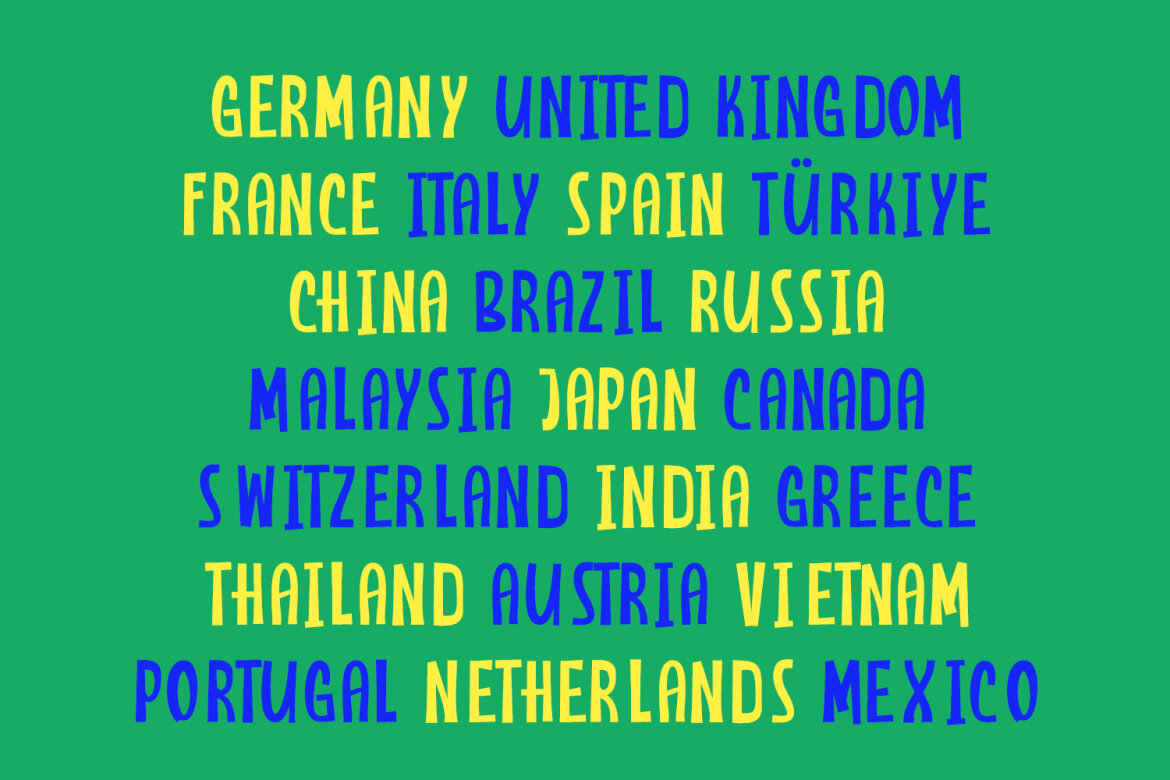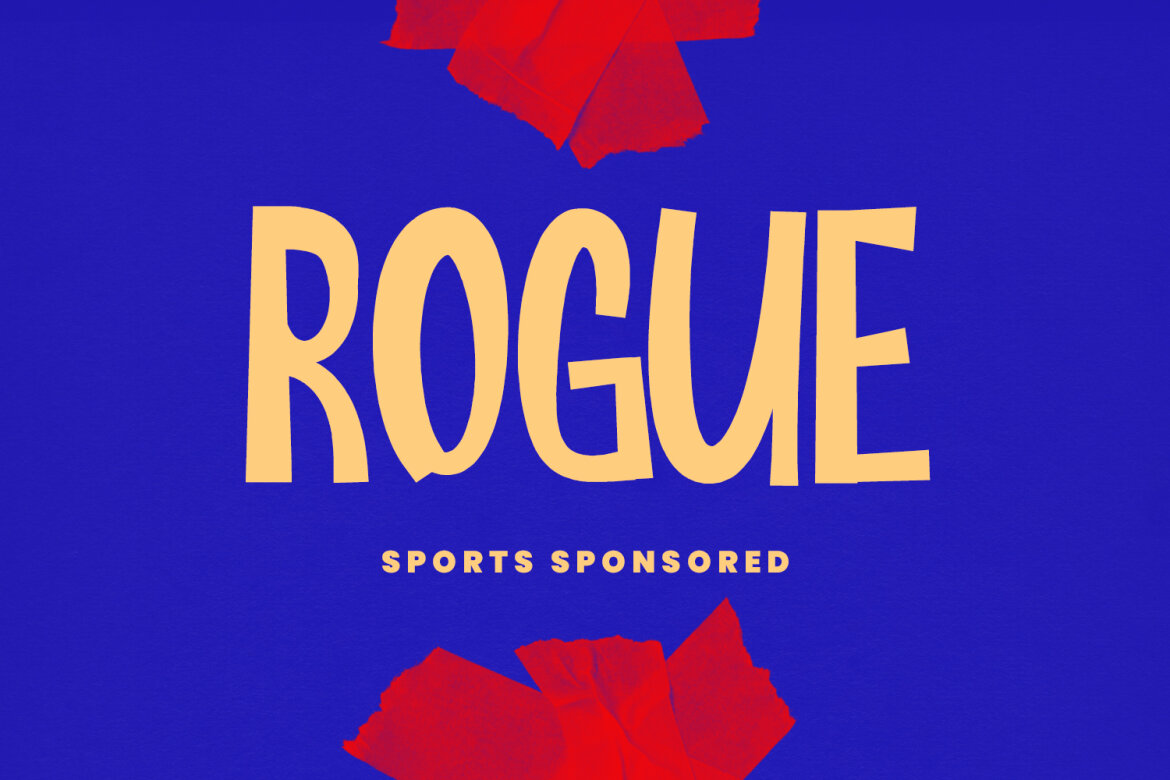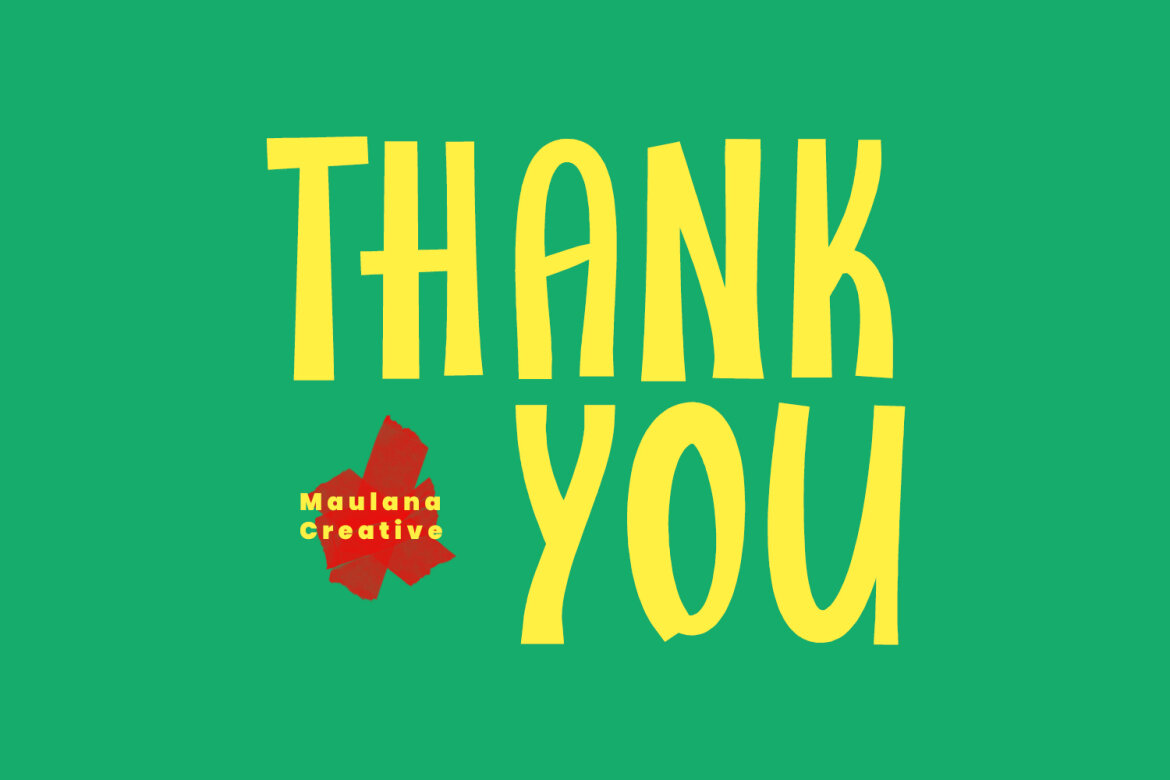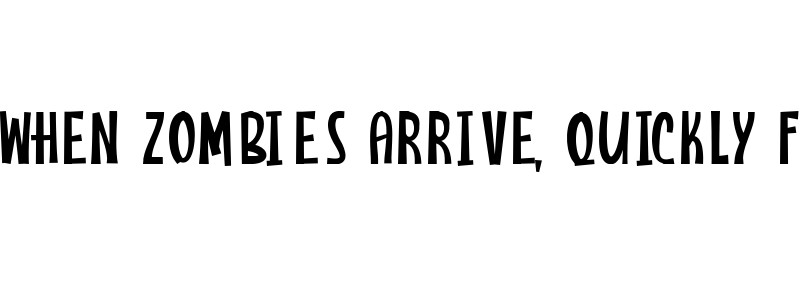
Avendes Frovelith Handmade FREE Font
Avendes Frovelith
Avendes Frovelith is a decorative display font. With Bold Sharp stroke, Upright and fun character with a bit of ligature and alternate. To give you an extra creative work. Avendes Frovelith font support multilingual more than 100+ language. This font is good for logo design, Social media, Movie Titles, Books Titles, a short text even a long text letter and good for your secondary text font with Script. Make a stunning work with Avendes Frovelith font.